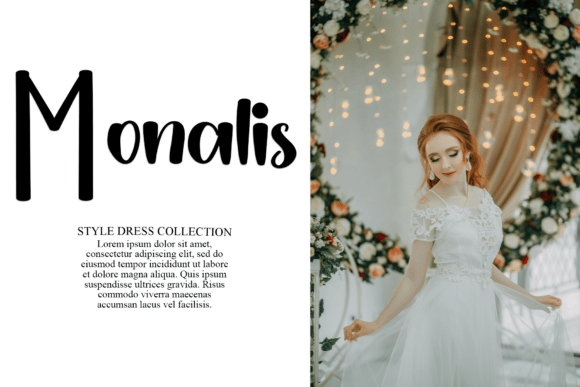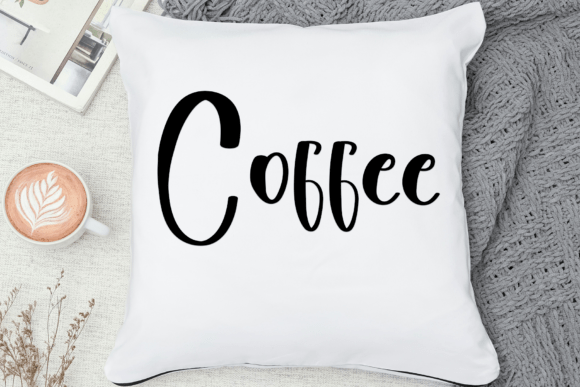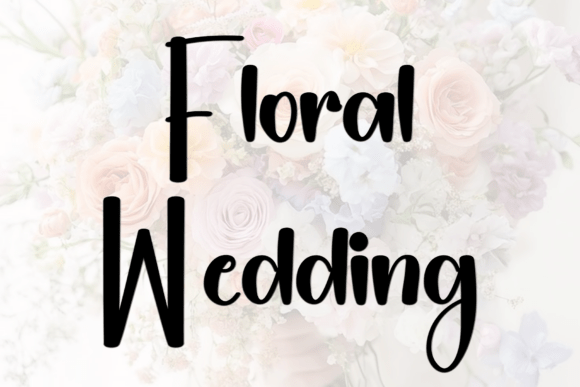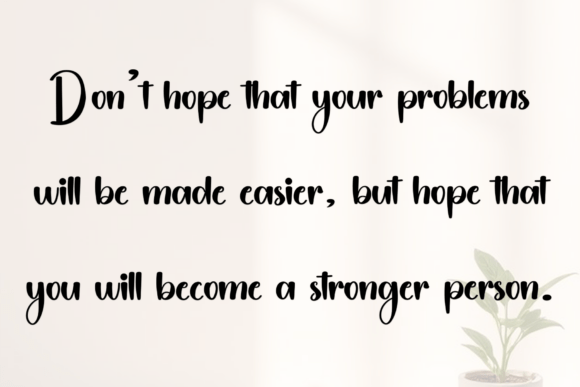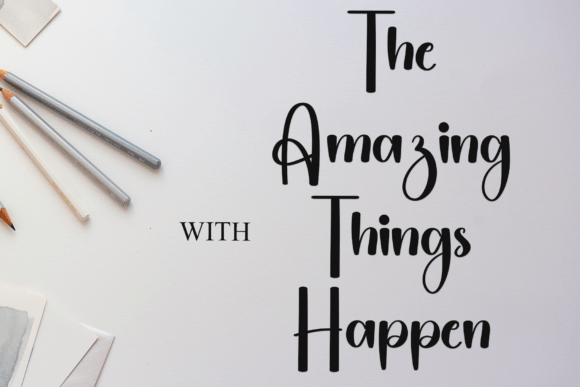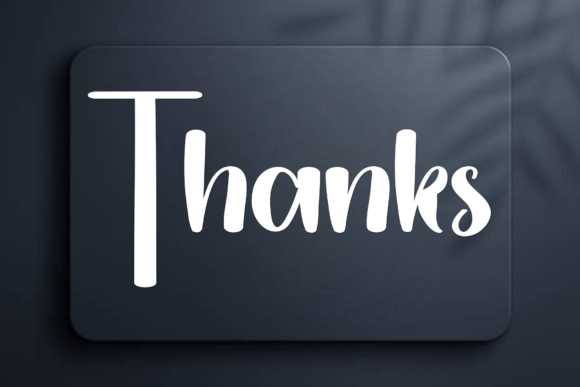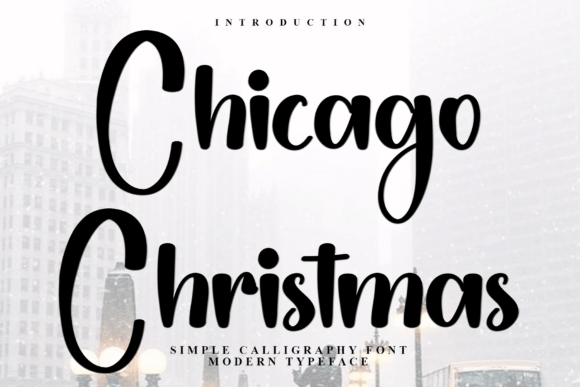
Introducing the Chicago Christmas Font: A Festive and Versatile Design Element
As the holiday season approaches, designers and crafters are on the lookout for unique and eye-catching elements to add a touch of magic to their projects. If you’re looking for a font that embodies the spirit of Christmas, look no further than the Chicago Christmas Font. This beautiful and distinctive font is designed with a soft, unique touch that is sure to make your designs stand out.
A Font with a Special Character
The Chicago Christmas Font is characterized by its distinctive strokes, which give it a special character that sets it apart from other fonts. Its unique design makes it meaningful and versatile, perfect for use in a wide range of design projects, crafts, and other creative works. Whether you’re designing holiday cards, creating festive decorations, or crafting special gifts, this font is sure to add a touch of personality and flair to your projects.
With its varied characters and natural font style, the Chicago Christmas Font is perfect for use in a wide range of design projects and crafts. From holiday-themed designs to everyday creative projects, this font is sure to enhance your designs and make them appealing to a wide range of audiences. Its versatility makes it ideal for use in various artistic and creative fields, including graphic design, digital art, and crafting.
Enhance Your Designs with the Chicago Christmas Font
The Chicago Christmas Font is more than just a design element – it’s a way to bring your designs to life and make them more engaging and appealing to your audience. Its unique and festive design makes it perfect for use in holiday-themed designs, but it’s also versatile enough to use in everyday design projects. Whether you’re looking to add a touch of personality to your designs or create a cohesive brand identity, this font is sure to deliver.
Key Features of the Chicago Christmas Font
- Unique and distinctive design: The Chicago Christmas Font features a soft, unique touch that sets it apart from other fonts.
- Varied characters: With a range of characters to choose from, you can create unique and interesting designs that showcase your creativity.
- Natural font style: The font’s natural style makes it perfect for use in a wide range of design projects, from holiday-themed designs to everyday creative projects.
- Versatile and meaningful: The Chicago Christmas Font is designed to be versatile and meaningful, making it perfect for use in various artistic and creative fields.
If you’re looking for a font that will add a touch of magic to your designs, look no further than the Chicago Christmas Font. Its unique and festive design makes it perfect for use in holiday-themed designs, while its versatility and compatibility make it ideal for use in a wide range of design projects and crafts. With its distinctive strokes and varied characters, this font is sure to enhance your designs and make them appealing to a wide range of audiences.
Whether you’re a professional designer or a crafter working on a personal project, the Chicago Christmas Font is a must-have design element that will bring your designs to life and make them more engaging and appealing to your audience.